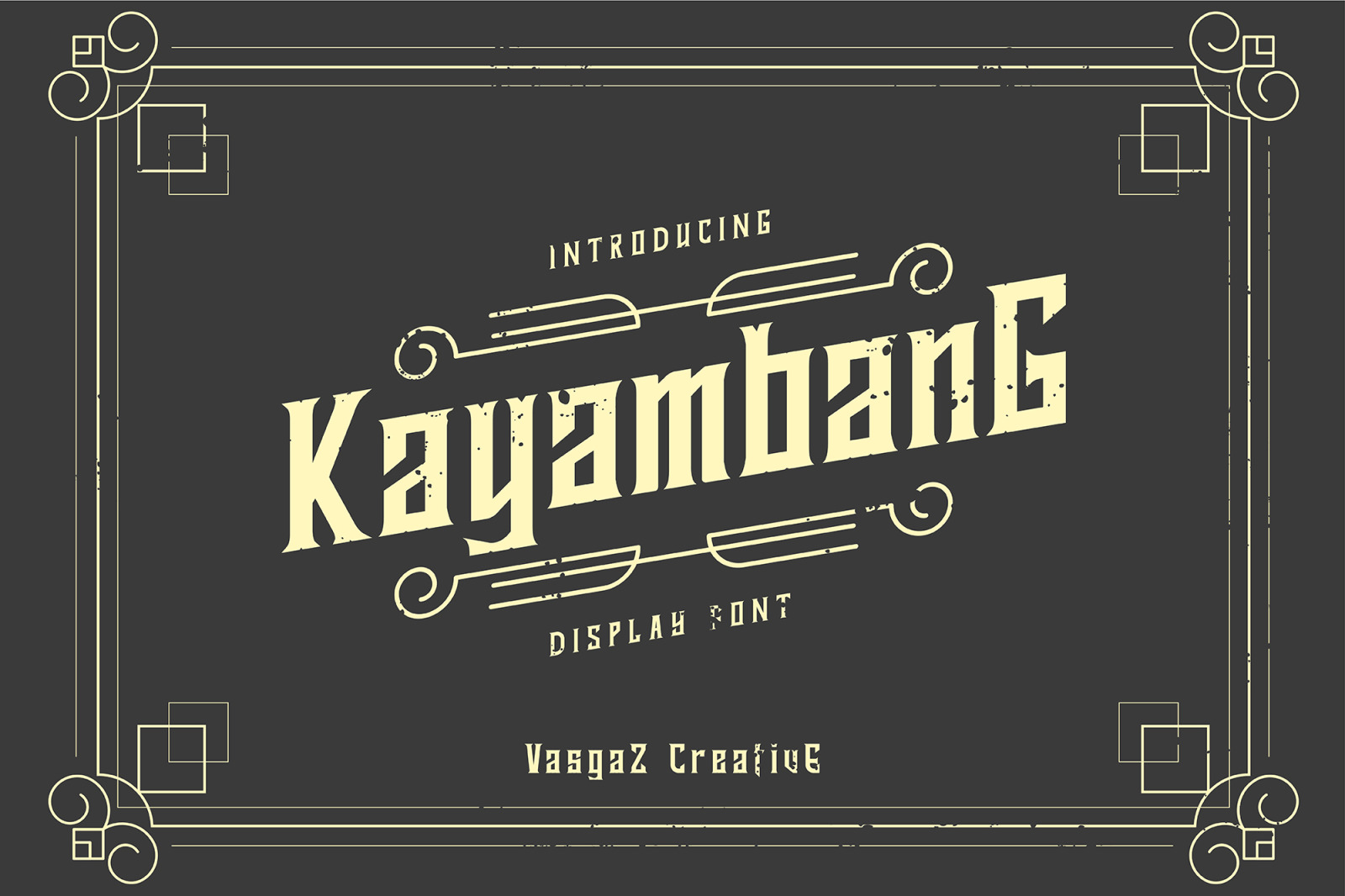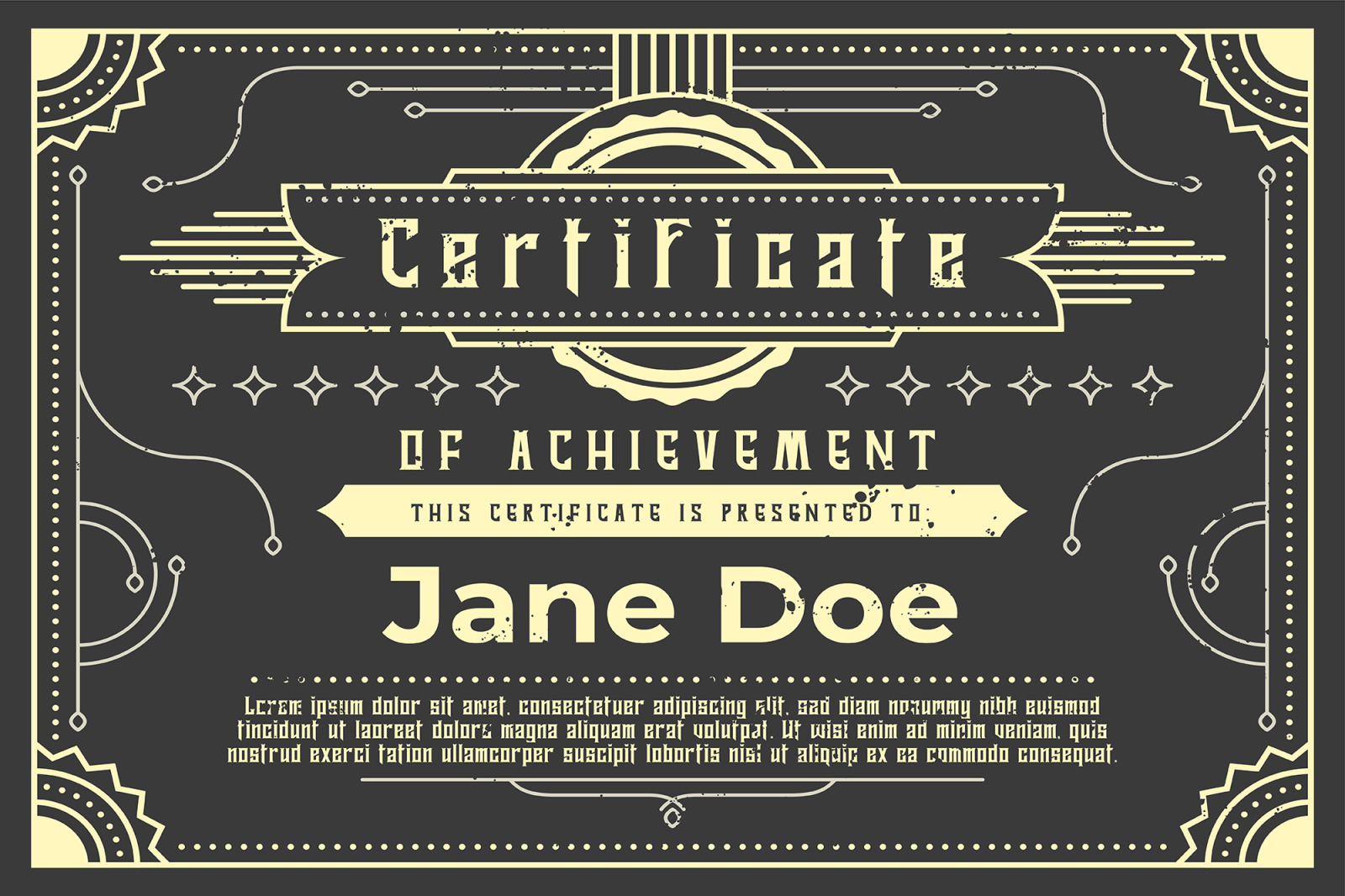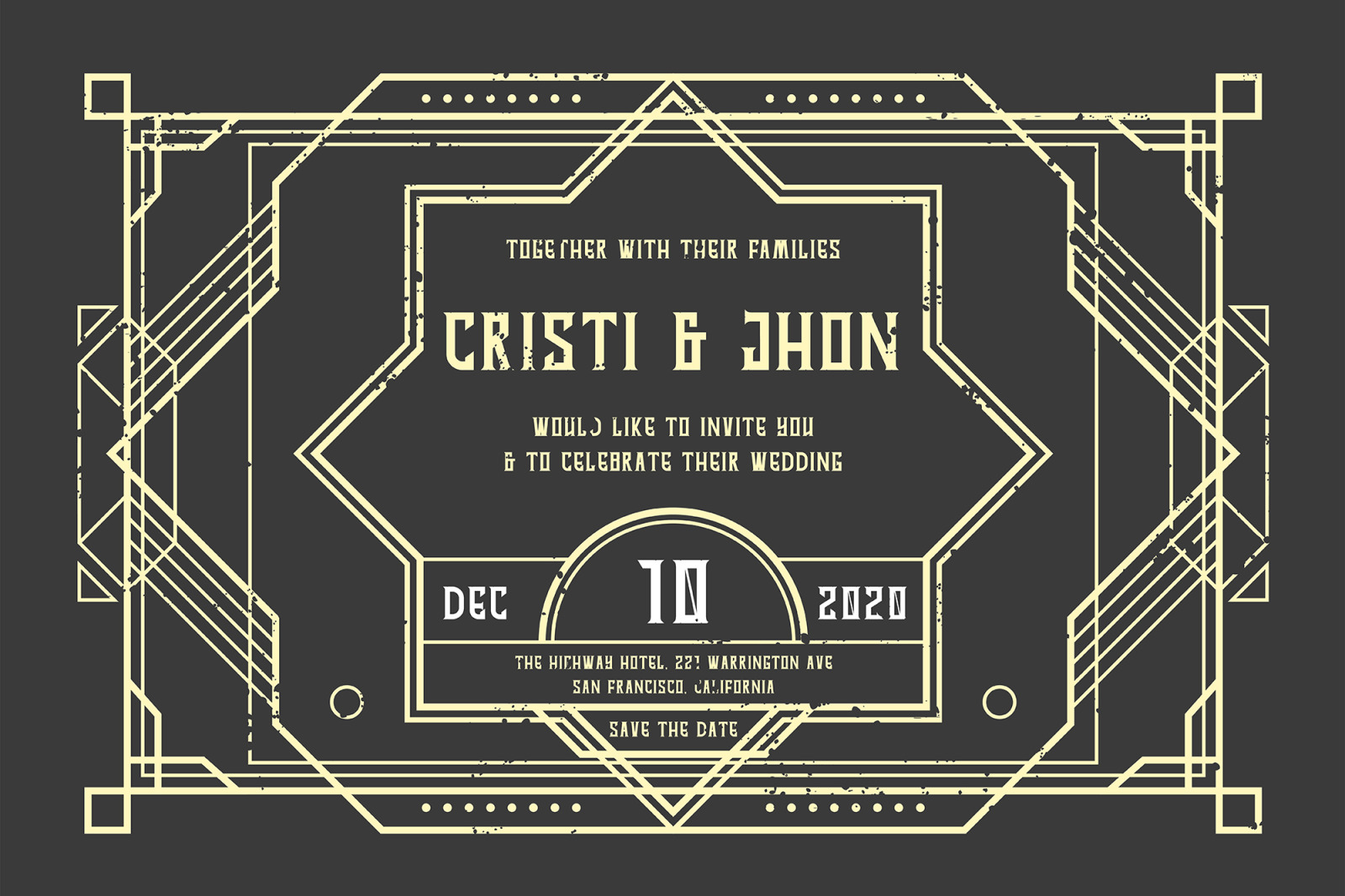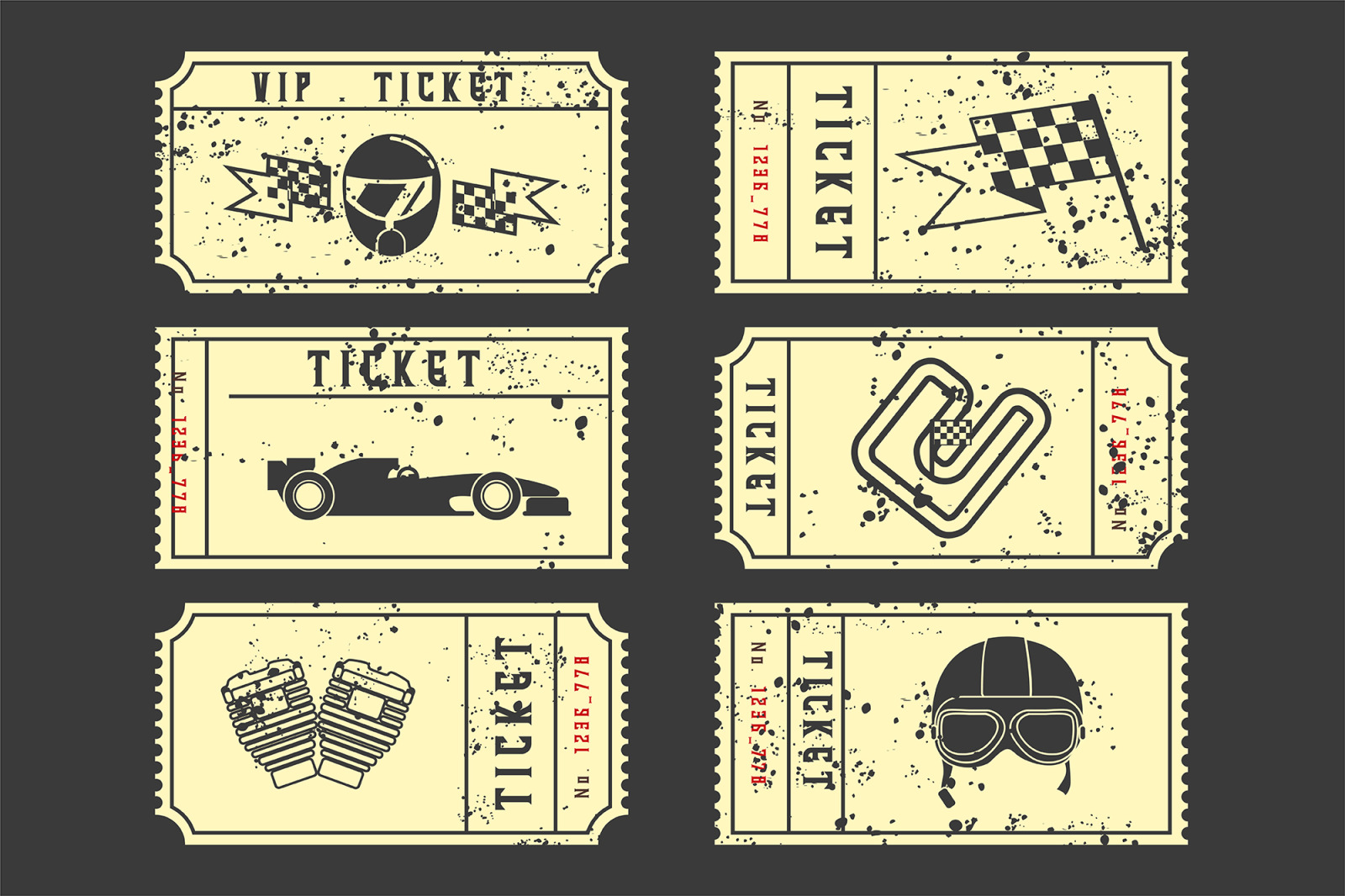
Kayambang Font
Kayambang , is a font with a peppered with modern vintage. Kayambang fonts as well, these two fonts are perfect for your creative work, such as Poster, t shirt, logo, Label and everything else,features Kayambang font : Uppercase Lowercase Numeral Functional